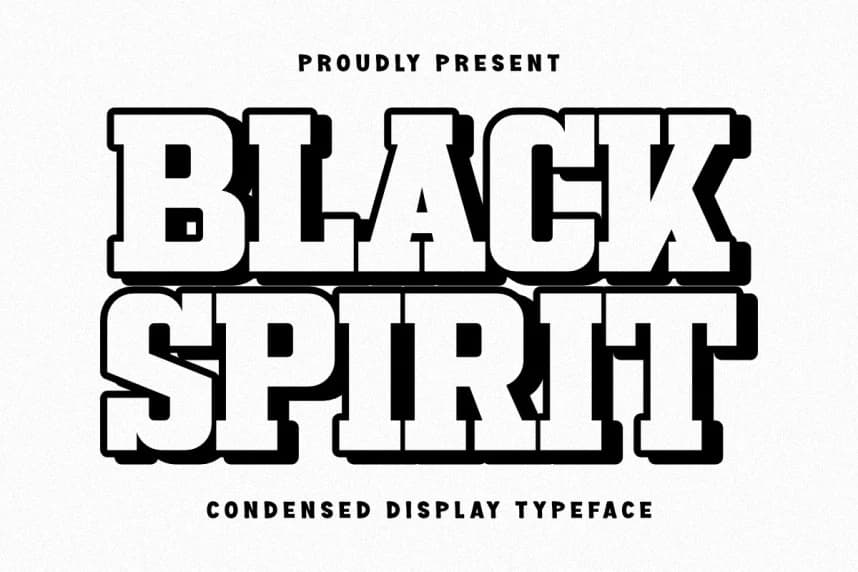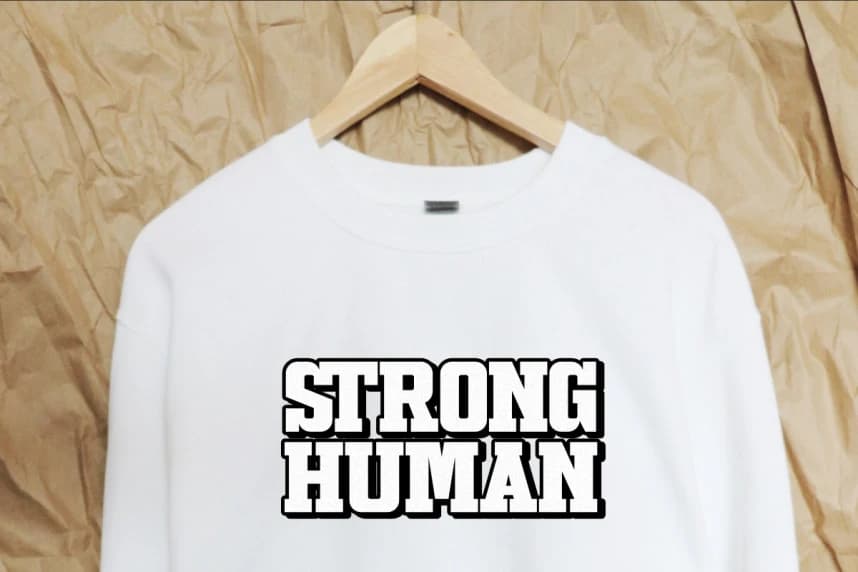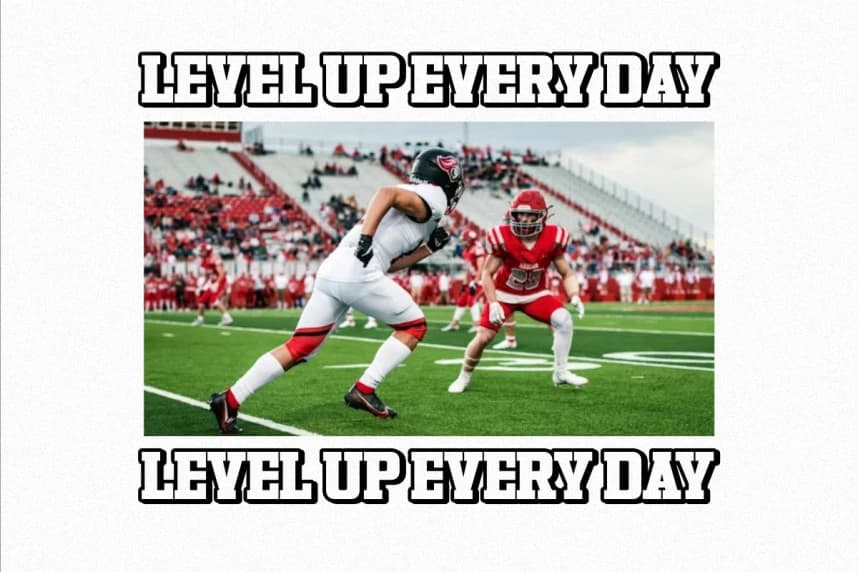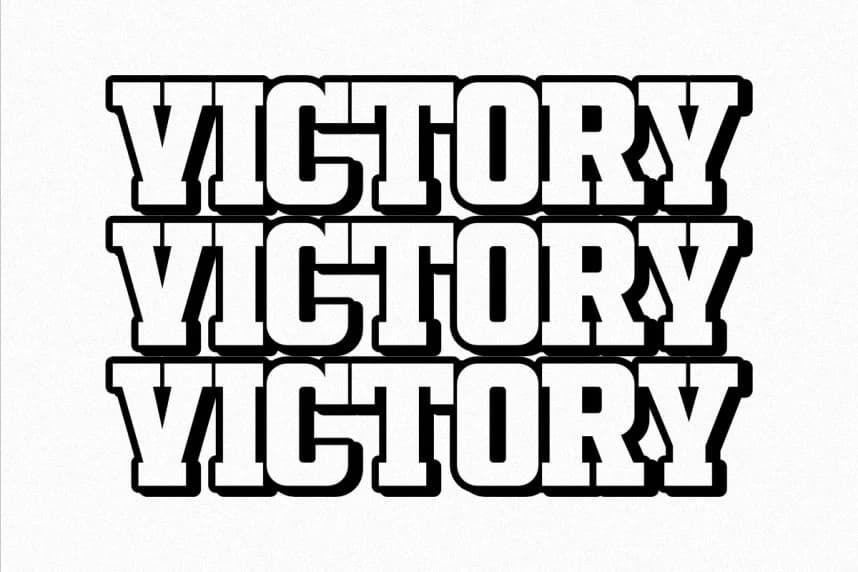
Black Spirit Font
Black Spirit Font is a truly massive and incredibly powerful Condensed Display Typeface. It features an ultra-thick, blocky structure characterized by clean lines and smoothly rounded corners, perfectly balancing a retro punch with a sleek modern appeal.
- Slab Serif